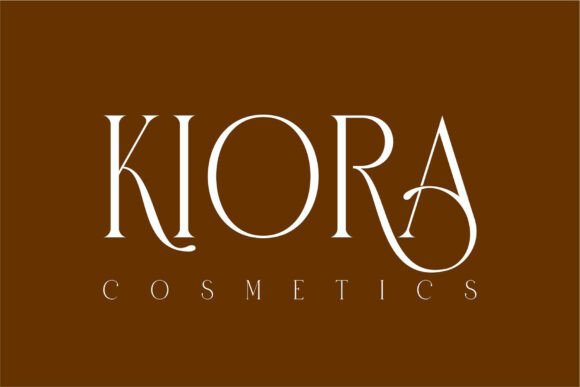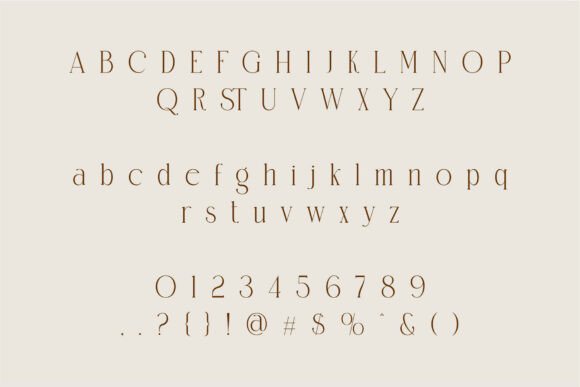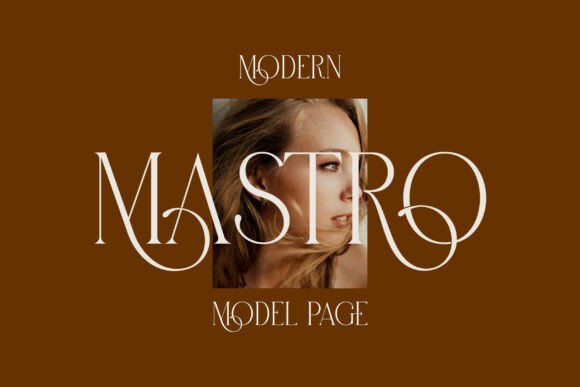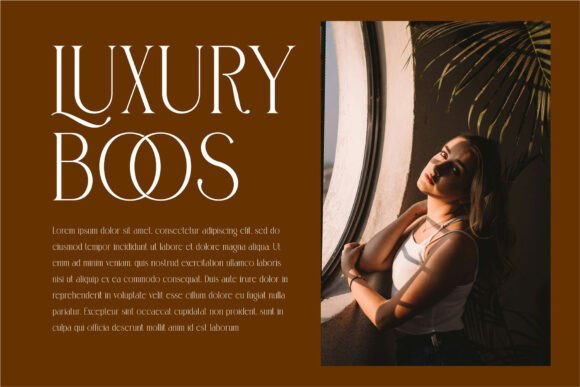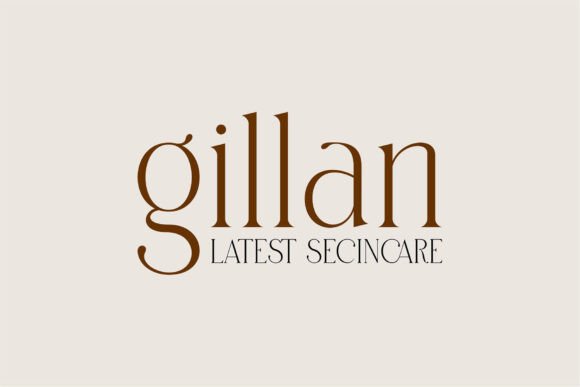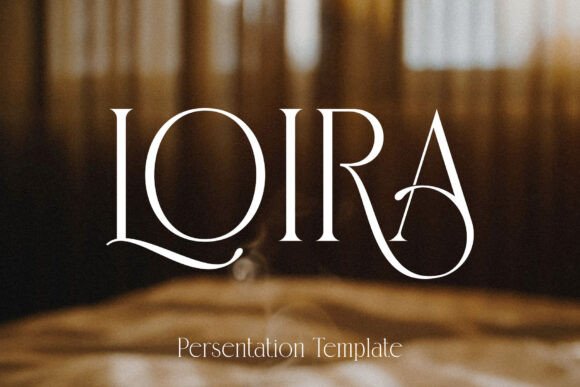
Introduction to Marinna Font
Have you ever stared at a blank canvas, wondering how to bring your creative vision to life? For designers, finding the perfect font can be the spark that ignites a project. And when that font is MARINNA, the possibilities become endless. With its elegant serif design, MARINNA Font is the perfect blend of classic sophistication and modern flair.
Whether you’re working on a high-end branding project or a personal design endeavor, MARINNA Font is a valuable resource that can elevate your creative project to new heights. Its refined details and balanced proportions make it an ideal choice for logos, editorials, invitations, and more. Plus, with a transparent background and free download option, you can focus on what matters most – bringing your unique style to life.
As a design resource, MARINNA Font is a must-have for any creative professional. Its versatility and charm make it the perfect addition to any design arsenal, ensuring that your work stands out with distinction and sophistication.
Key Features of Marinna Font
- High-quality design: Marinna Font offers a sophisticated and elegant look, perfect for creative projects.
- Transparent background: This font features a transparent background, allowing for easy layering and design flexibility.
- Unique characteristics: This font features a unique blend of modern and vintage elements, making it perfect for creative projects that require a distinctive look.
- Perfect for digital design: Marinna Font is ideal for use in digital design projects, including logos, branding, and UI/UX design.
Honest Review: Marinna Font
I recently had the chance to explore the Marinna Font, and I must say it’s been a great addition to my design resource library. The high quality of this font is immediately noticeable, especially when paired with a transparent background, which really makes it pop.
- What works well: ✨ I love how versatile the Marinna Font is. It’s perfect for both creative project titles and body text, making it a great all-around choice.
- What works well: ✨ The font’s modern design aesthetic is really appealing, and the various weights and styles make it easy to customize for different applications.
Of course, no font is perfect, and the Marinna Font does have a few limitations. ⚠️ For one, some of the characters can be a bit difficult to read at smaller font sizes. Additionally, the font’s design may not be suitable for projects that require a more traditional or classic look.
The Marinna Font is a versatile and high-quality design resource that offers a transparent background, making it perfect for creative projects. With its clean and elegant design, it’s an ideal choice for designers and non-designers alike.
Tips for Getting the Most Out of Marinna Font
To get the most out of the Marinna Font, use it in combination with other design elements, such as images and colors, to create visually appealing designs.
The Marinna Font is suitable for various creative projects, including:
- Business card design
- Wedding invitation design